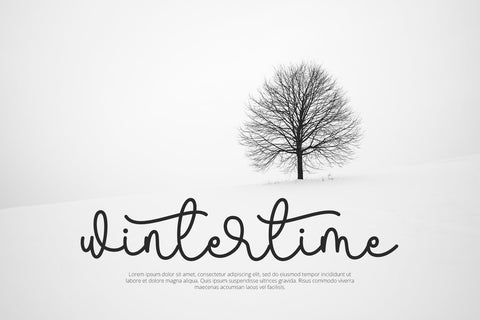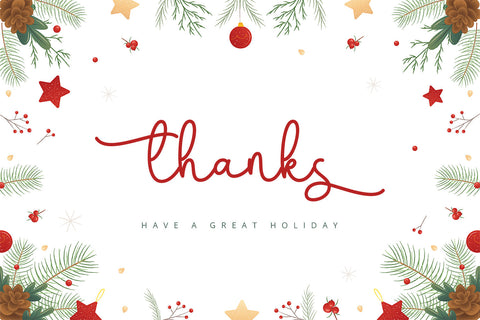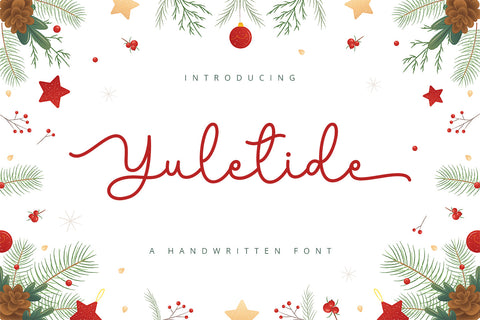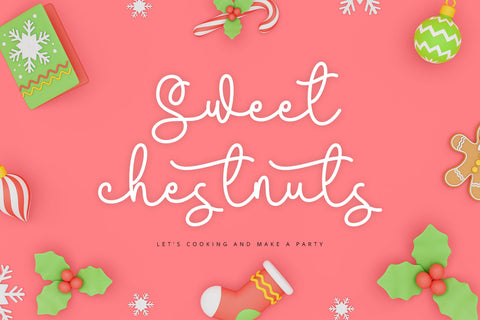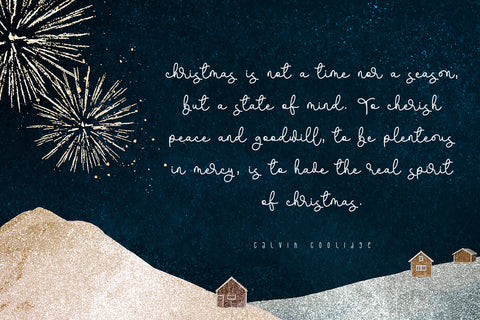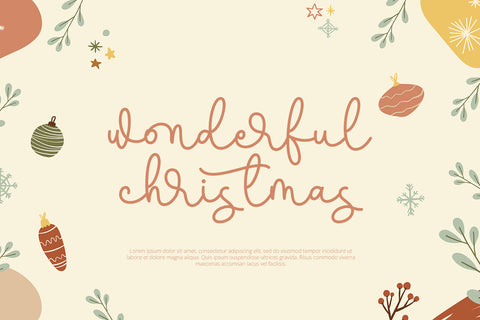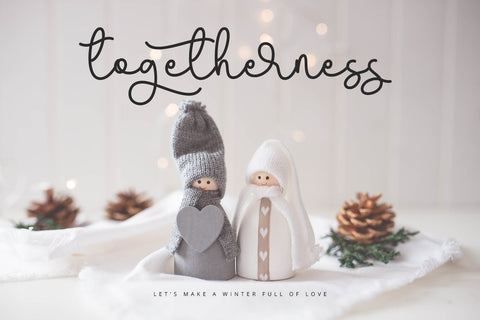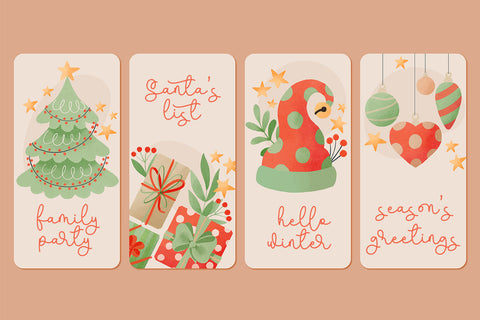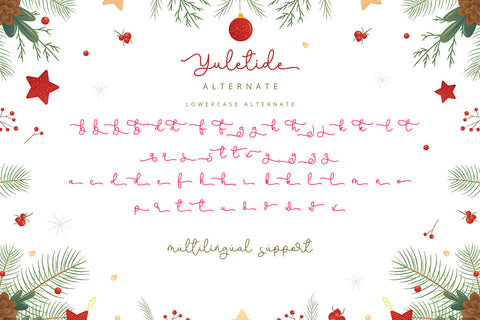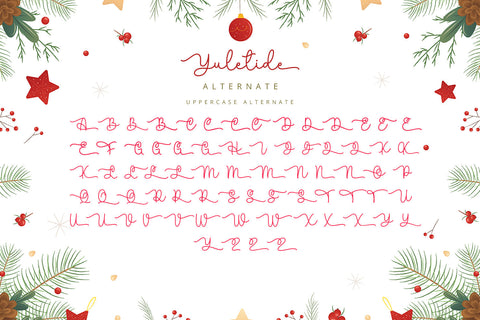
Yuletide - Handwritten Font
Yuletide is a handwritten script font with cute and unique style. It will be perfectly used for Branding, Logo Design, Lettering, Logotype, Clothing, Poster, magazine, packaging, posters, shopping bags, t-shirts, book covers, photography, special events and other design project.